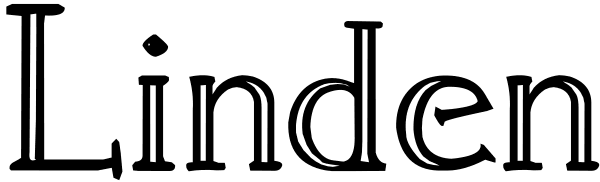
Linden
I hope that you enjoy the "Linden" font. The basis for this new font is my Leaf font. As much as I love the Leaf font, however, I felt (and still feel) the desire to have a larger font, for three reasons: 1. I enjoy customizing my internet browser...